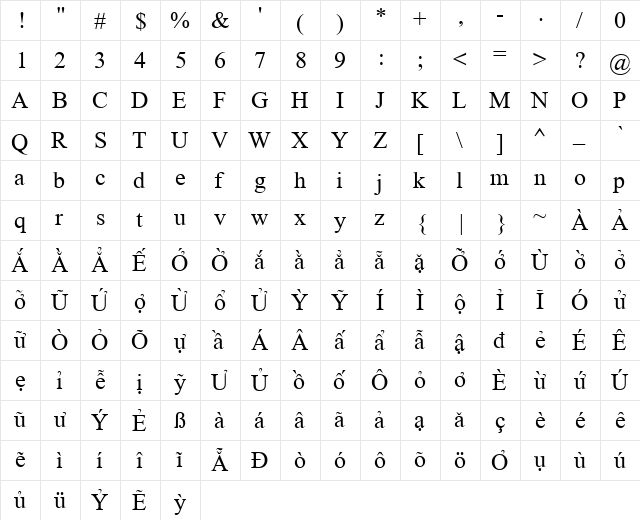
VPS Times Regular Font Preview
VPS Times Regular
Design Context for VPS Times Typeface
VPS Times is a composed and adaptable typeface that performs quietly and consistently across a wide range of design contexts.